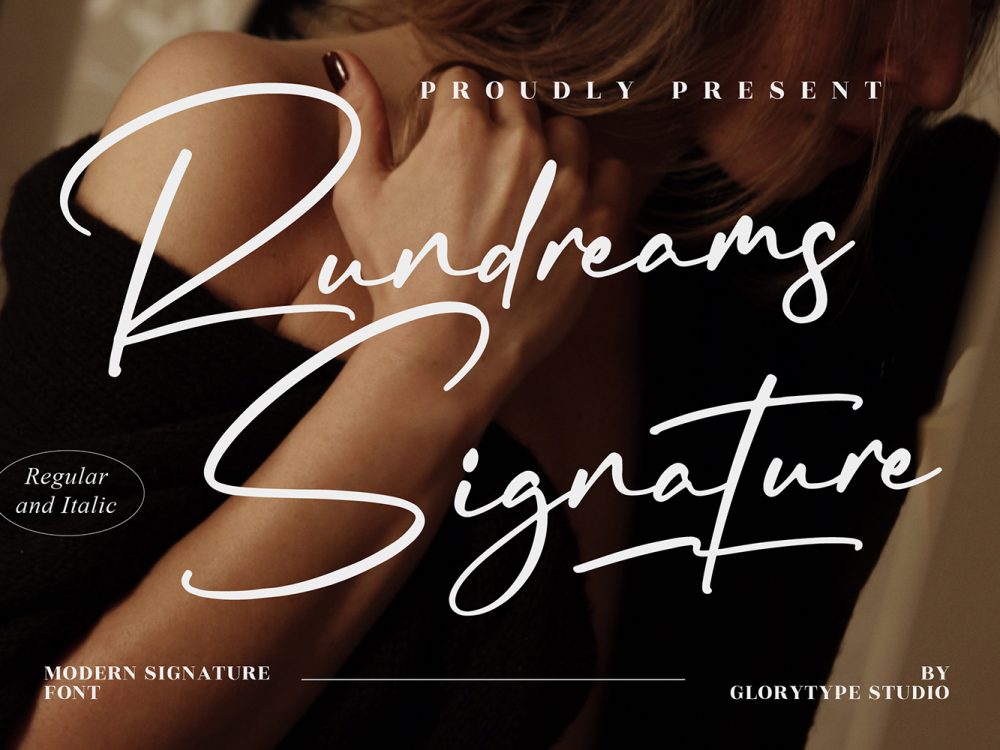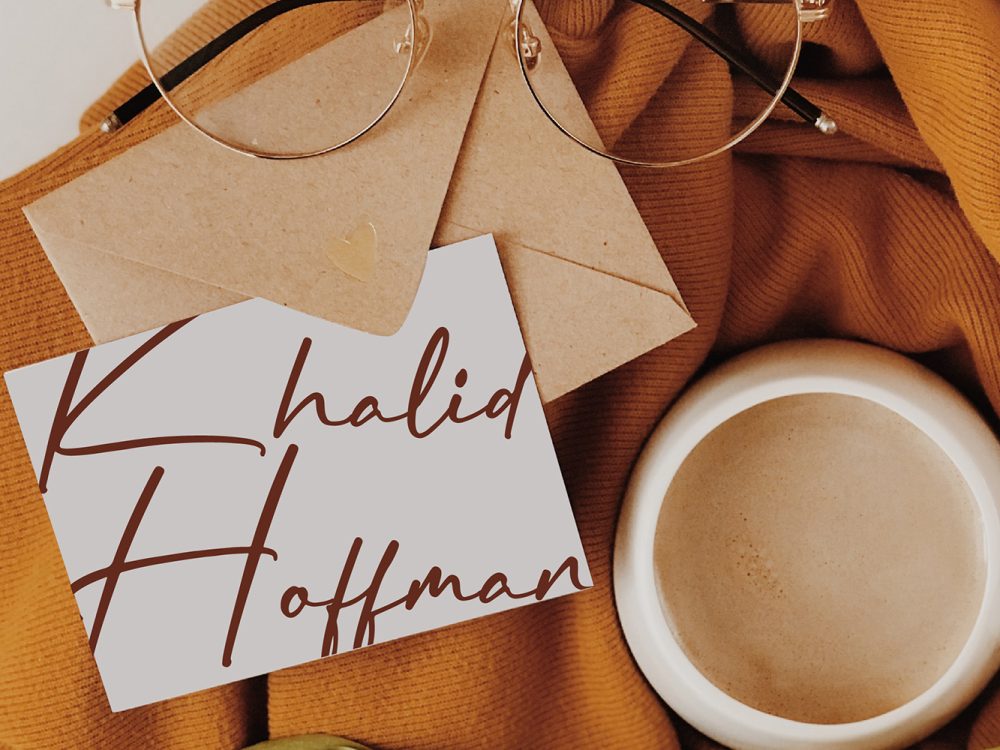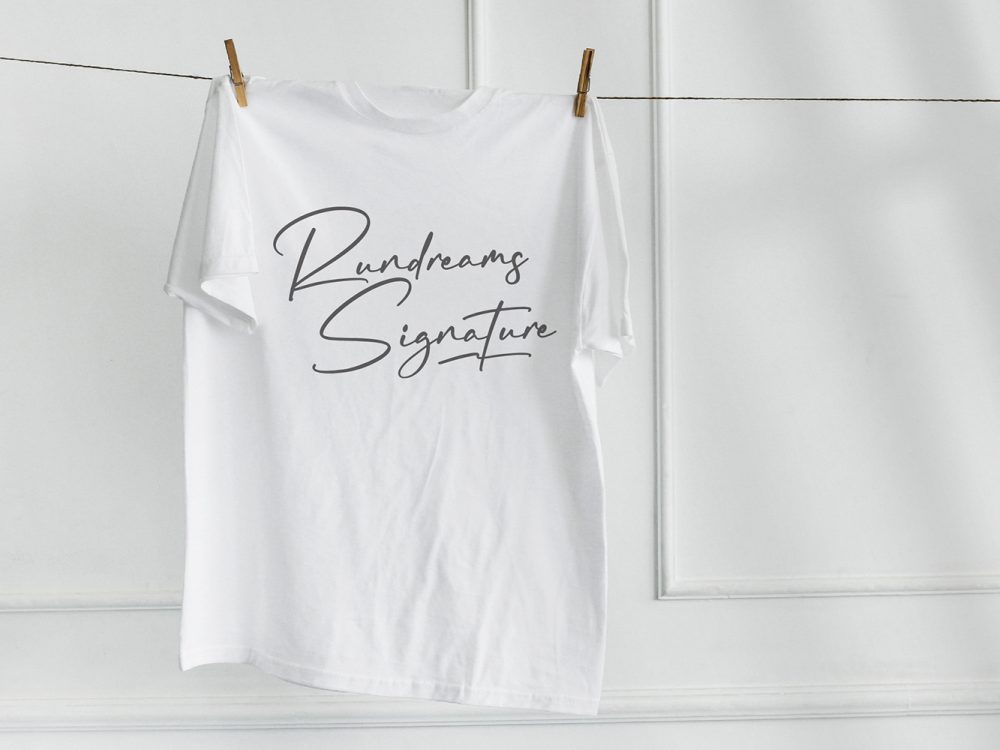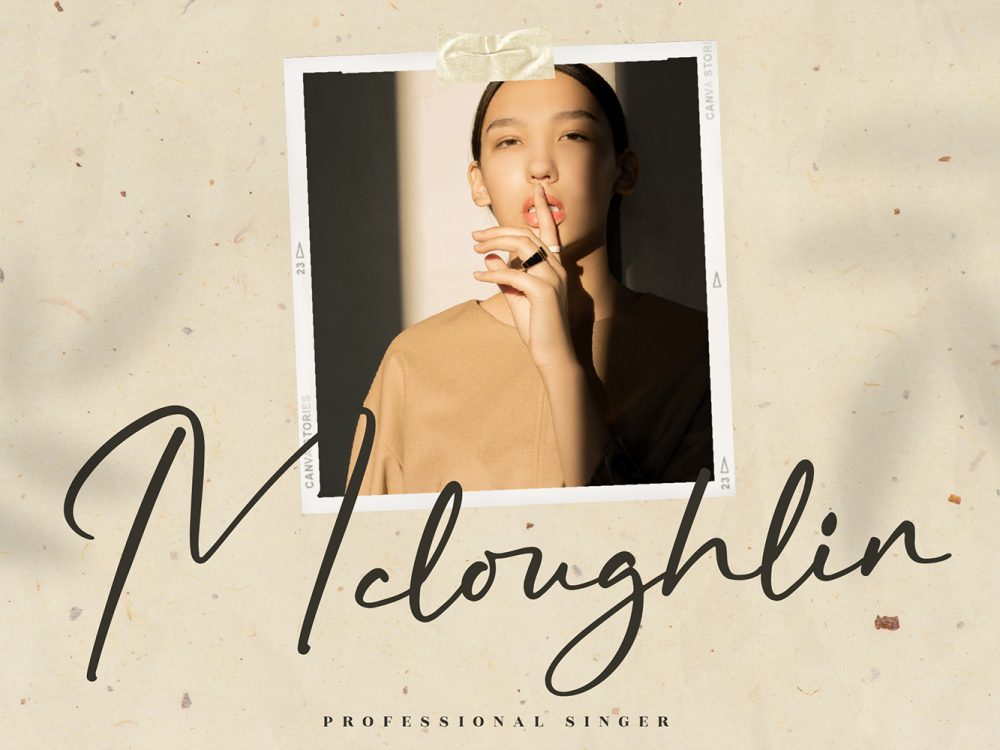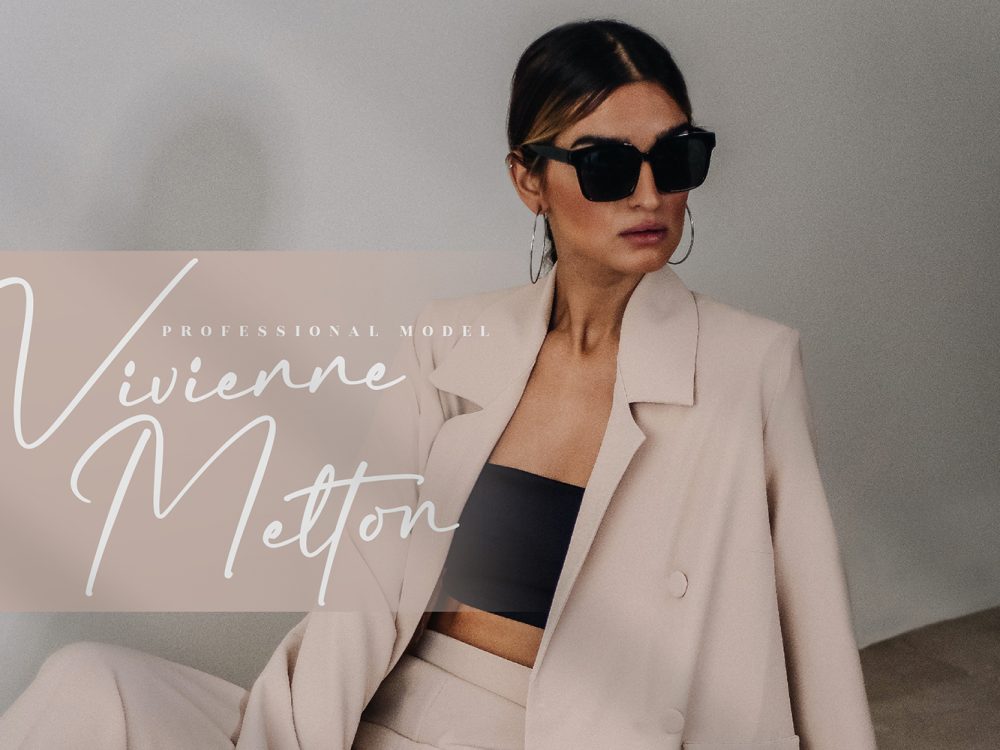
Rundreams Signature Free Font
Introducing Rundreams Signature Free Font, a script font of exquisite charm and delicate beauty, radiating elegance and sophistication. Meticulously designed for those seeking a stunning and rejuvenating aesthetic for their creations. If you like it don’t forget to check out the full version.